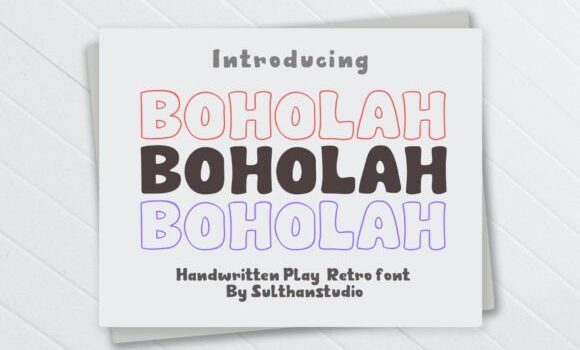
bohola
Bohola Font – Free Download Introduction to Bohola Font Bohola is an old-style font written by teenagers, as a form of expression for those who are bored or looking for cool and creative ideas by drawing something accompanied by writing.